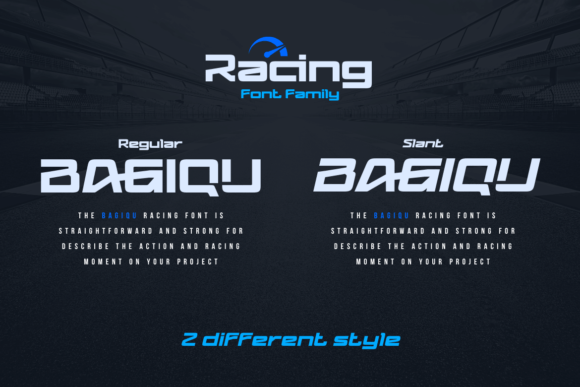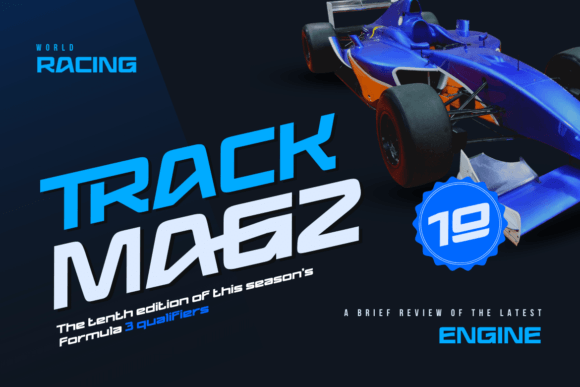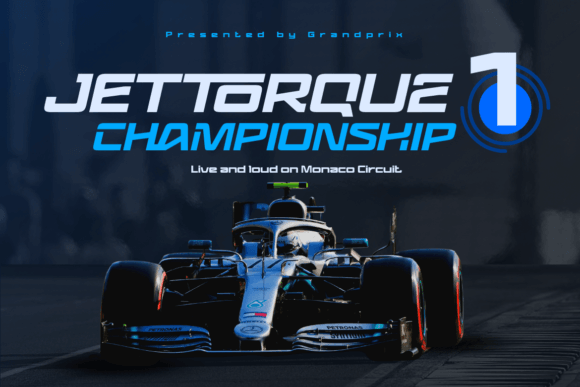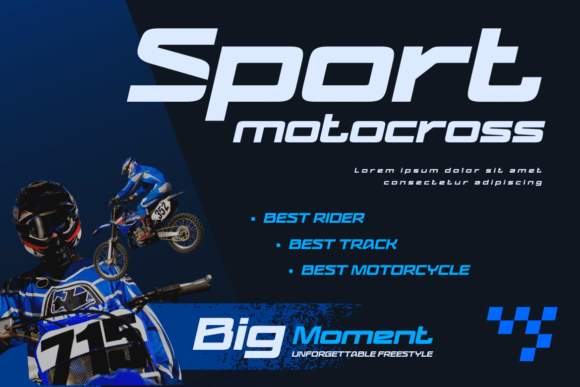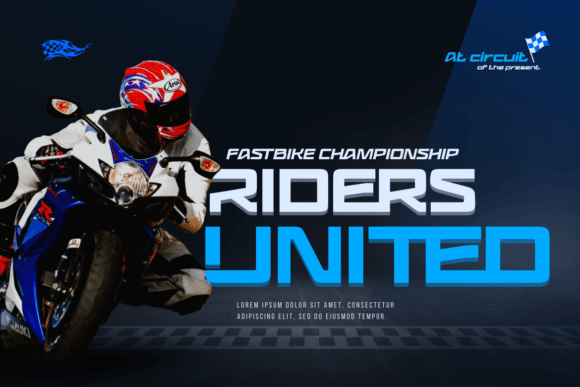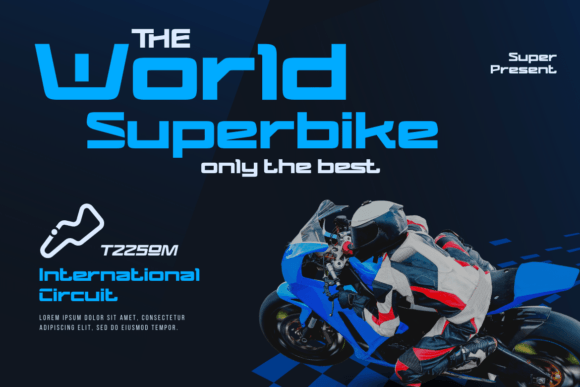
Introducing Bagiqu Font: The Ultimate Sporty Sans Serif Font for Stunning Designs
Are you a designer or crafter looking for a font that can elevate your designs to the next level? Look no further than Bagiqu Font, a sporty Sans Serif font designed to help you create stunning visuals for any project. In this article, we’ll dive into the features and benefits of Bagiqu Font, and explore how it can be used to take your designs to new heights.
What is Bagiqu Font?
Bagiqu Font is a modern Sans Serif font that exudes a sporty vibe, making it perfect for designs that require a bold and energetic feel. Its clean lines, simple shapes, and highly legible letterforms make it an excellent choice for a wide range of applications, from logo design to poster creation, and even social media graphics.
Key Features of Bagiqu Font
- Sporty Sans Serif design: Bagiqu Font boasts a fresh and sporty look that’s sure to grab attention.
- PUA encoded: With PUA encoding, you can easily access all the amazing glyphs and ligatures, giving you endless creative possibilities.
- Highly legible: The font’s simple and clean design ensures that your text remains easy to read, even at small sizes.
- Versatile: Use Bagiqu Font for logo design, poster design, signature design, branding, and more.
Use Cases for Bagiqu Font
Bagiqu Font is an incredibly versatile font that can be used for a wide range of design projects. Here are some ideas to get you started:
- Logo Design: Create a bold and memorable logo for your brand or business with Bagiqu Font.
- Poster Design: Use Bagiqu Font to create eye-catching posters for events, promotions, or advertising campaigns.
- Signature Design: Add a personal touch to your email signatures or business cards with Bagiqu Font.
- Branding: Establish a consistent visual identity for your brand with Bagiqu Font.
- Social Media Graphics: Use Bagiqu Font to create engaging social media graphics, such as Facebook and Twitter headers, or Instagram posts.
Benefits of Using Bagiqu Font
So why choose Bagiqu Font for your design projects? Here are just a few benefits:
- Easy to use: With its simple and intuitive design, Bagiqu Font is easy to use, even for designers who are new to font design.
- High-quality design: Bagiqu Font is designed to deliver high-quality results, with crisp and clean lines that look great in any size or resolution.
- Time-saving: With PUA encoding, you can access all the glyphs and ligatures you need in seconds, saving you time and effort.
In conclusion, Bagiqu Font is an excellent choice for designers and crafters who need a sporty Sans Serif font that can deliver stunning results. With its clean design, PUA encoding, and versatility, Bagiqu Font is the perfect solution for a wide range of design projects. Whether you’re creating logos, posters, or social media graphics, Bagiqu Font is sure to help you achieve your design goals.